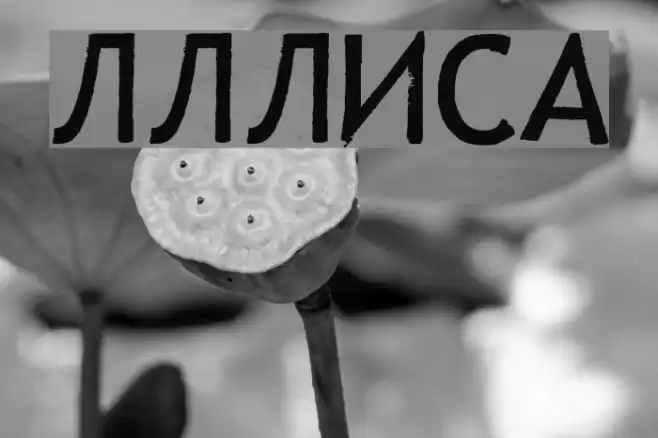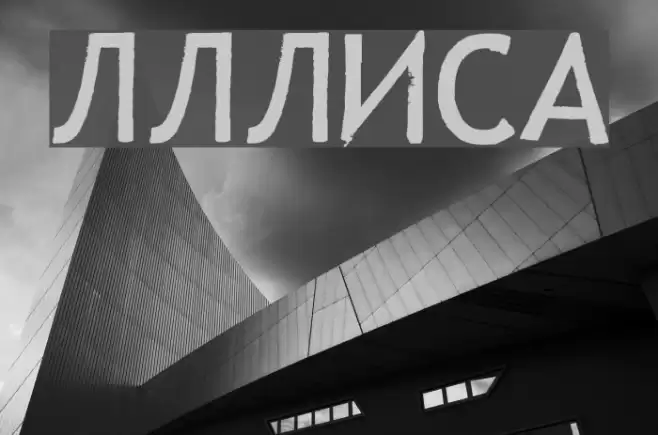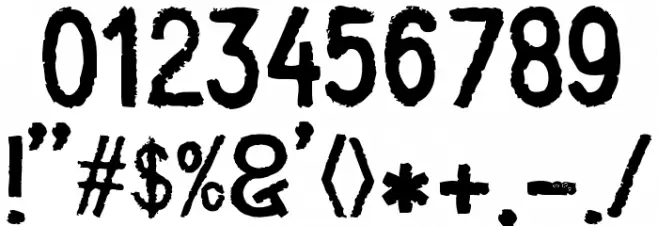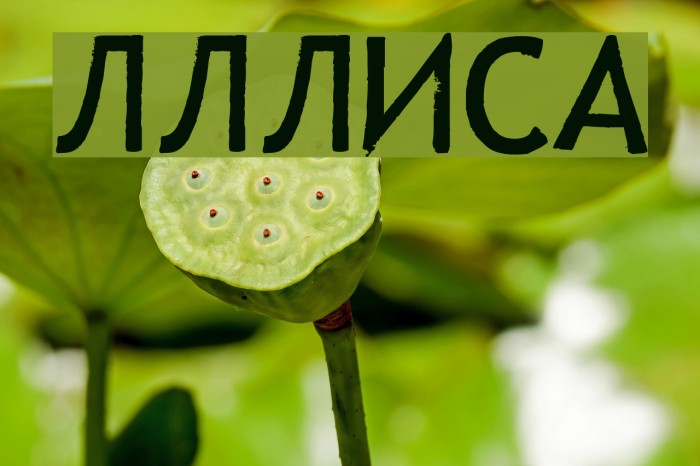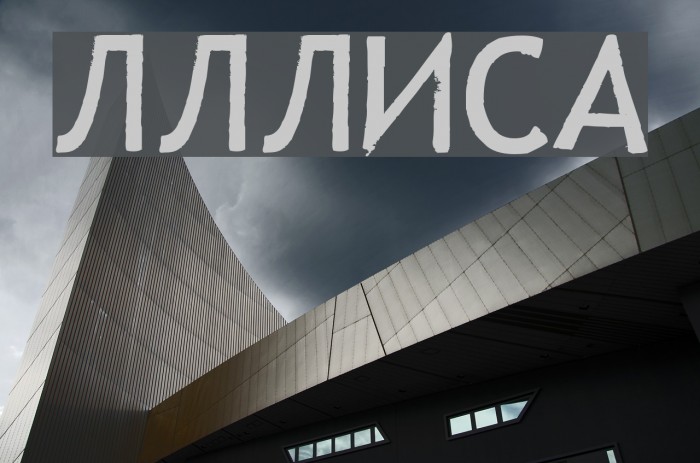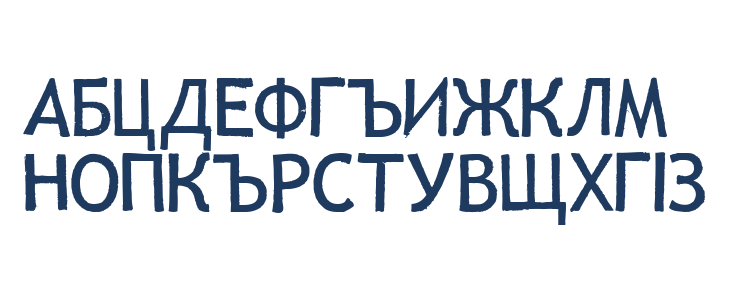
LLLisa Font
LLLisa Description
This font features a bold and expressive style with a hand-drawn appearance. The characters are slightly irregular, giving it a unique and artistic feel. The strokes are thick and uneven, adding to its rustic charm. The uppercase and lowercase letters maintain a consistent style, while the numerals and special characters complement the overall design. This font is ideal for projects that require a personal touch or a creative flair, such as posters, artistic designs, or branding that seeks to stand out.
A bold, hand-drawn font with an artistic and rustic style from Uncategorized fonts.
- Proposed Projects: Ideal for posters, artistic designs, branding, and creative projects.
- Overall Style: Artistic, Rustic